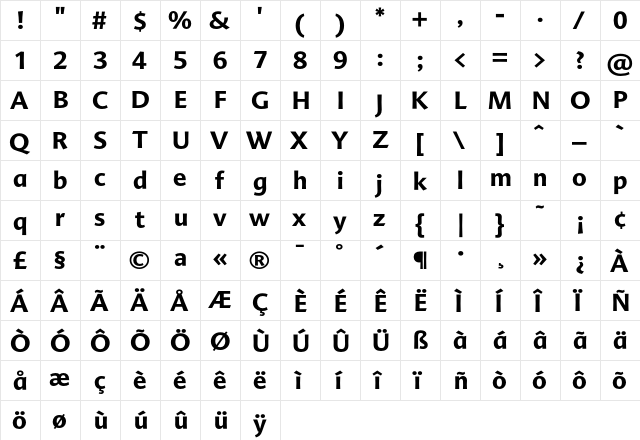
Advert-Bold Regular
Design Context for Advert-Bold Typeface
Advert-Bold takes a measured approach to typography — its balanced proportions and neutral character make it a reliable workhorse for both digital and print work. The heavy weight commands attention and anchors typographic hierarchies.